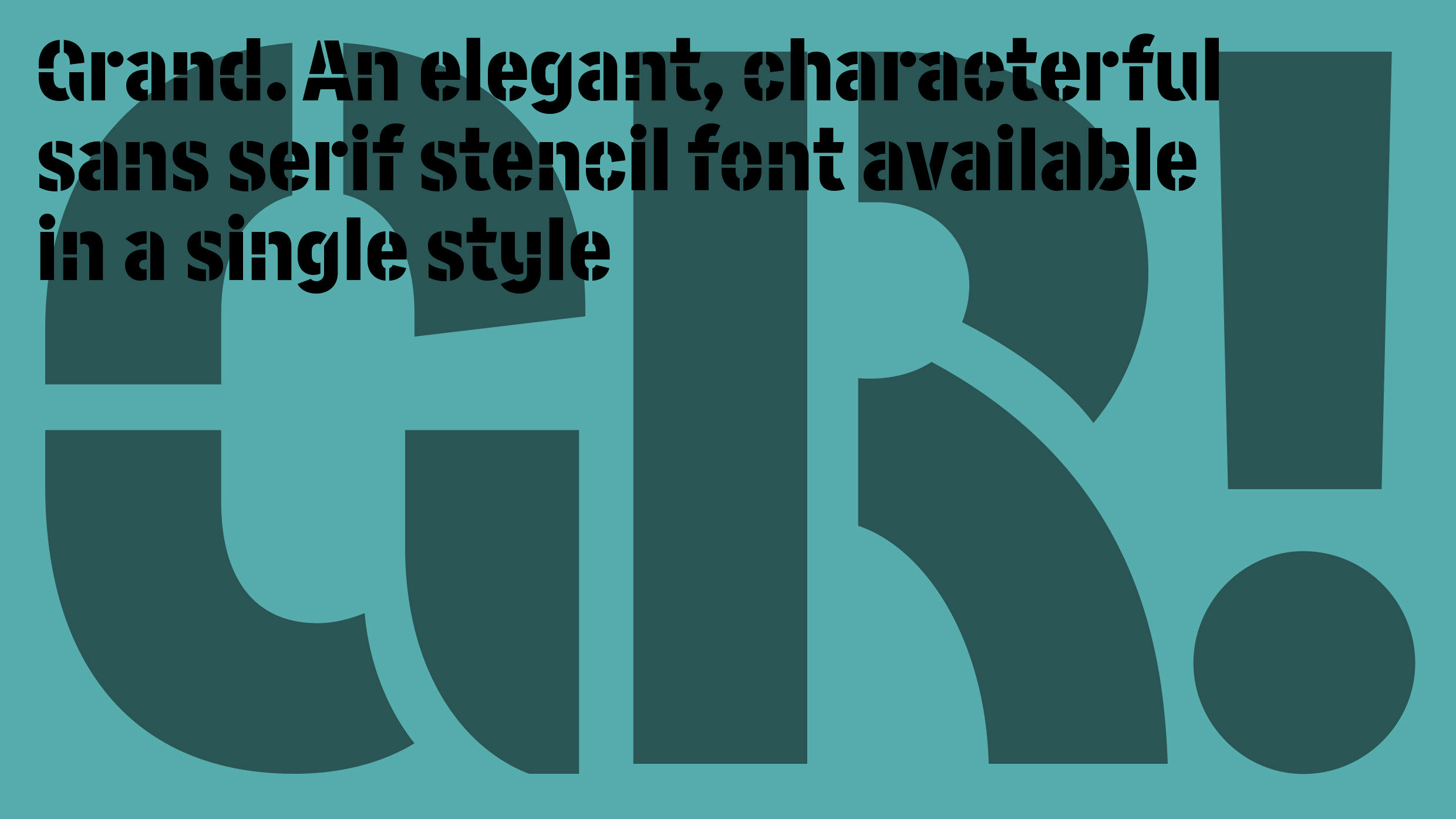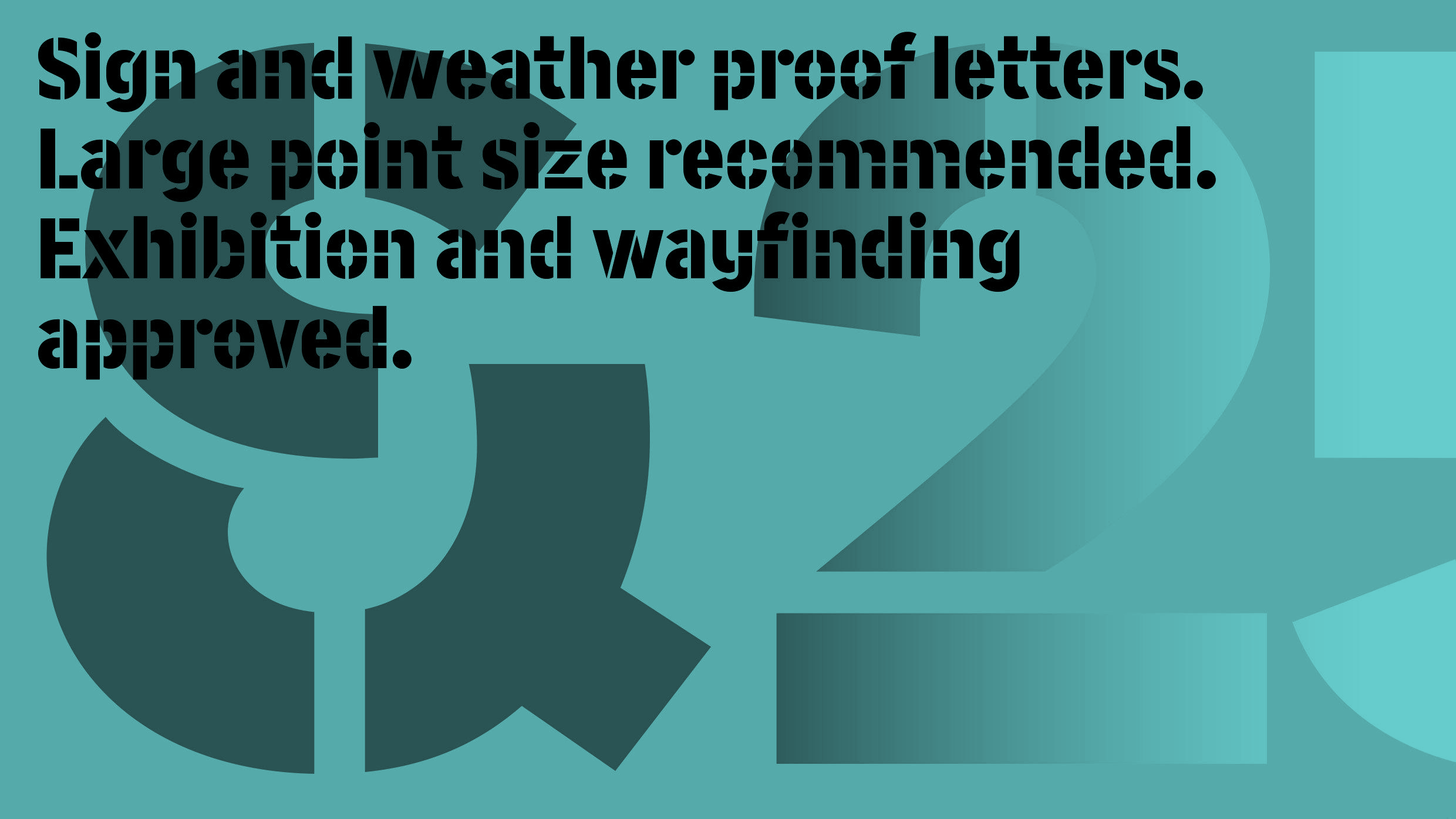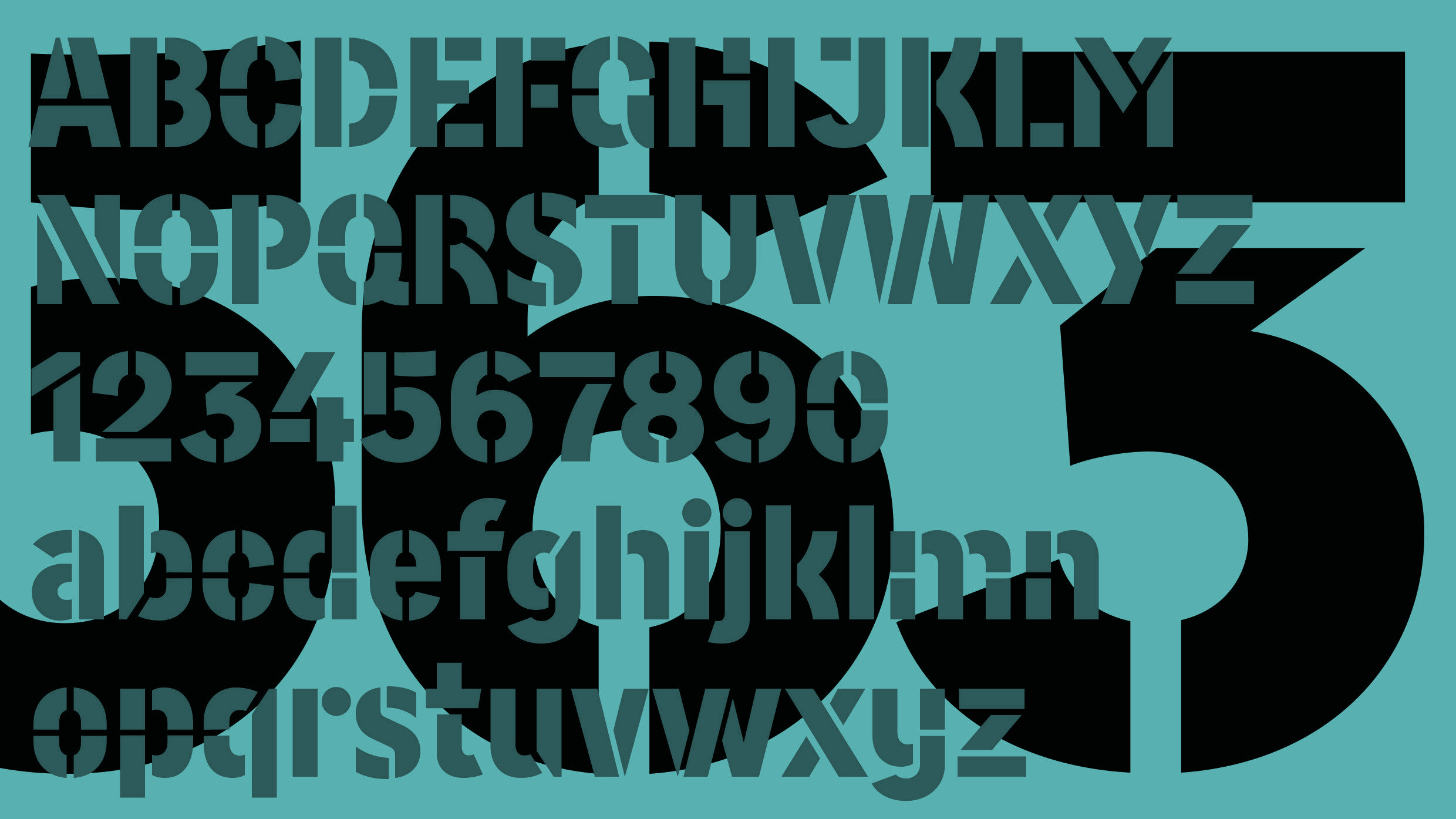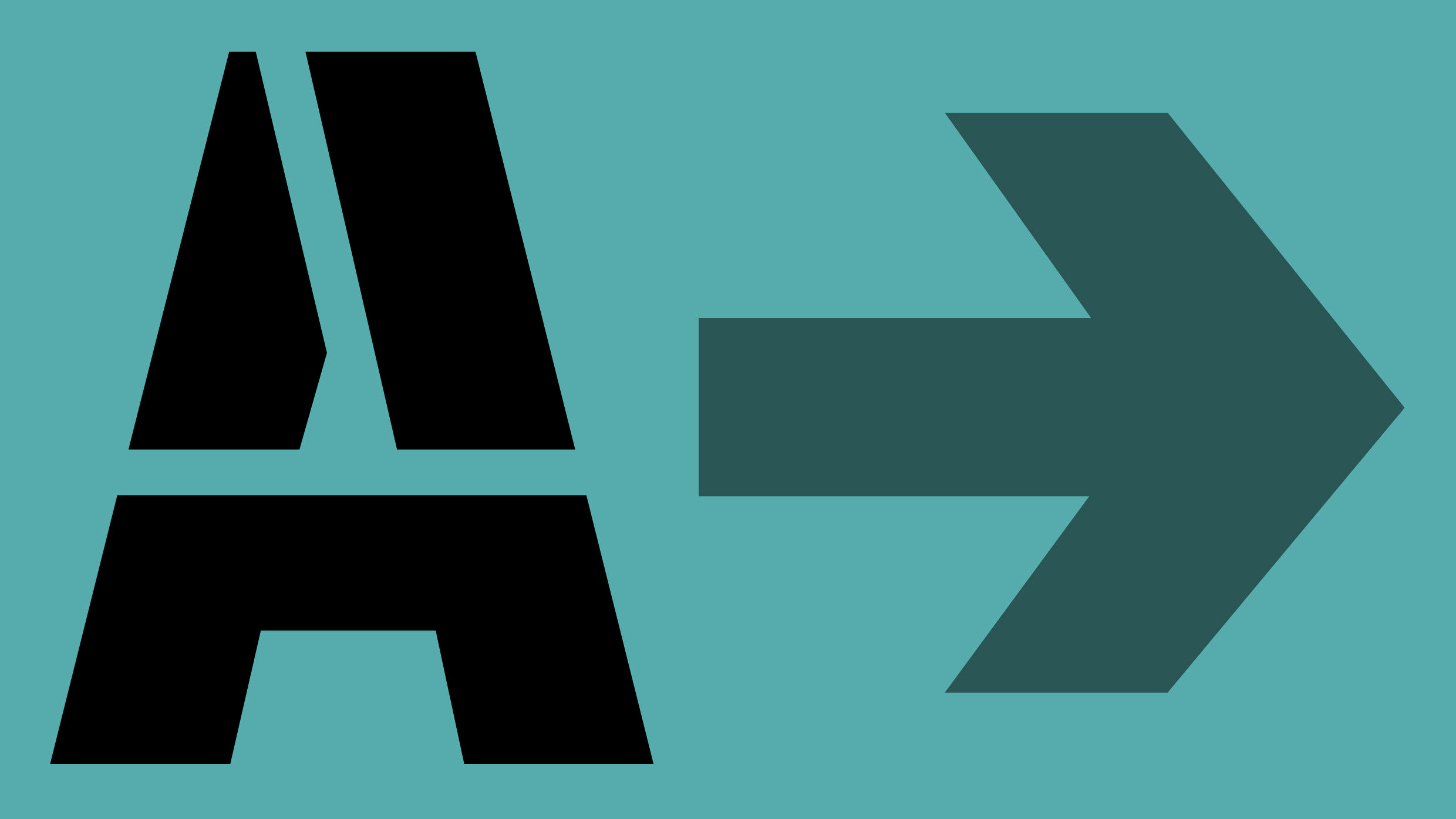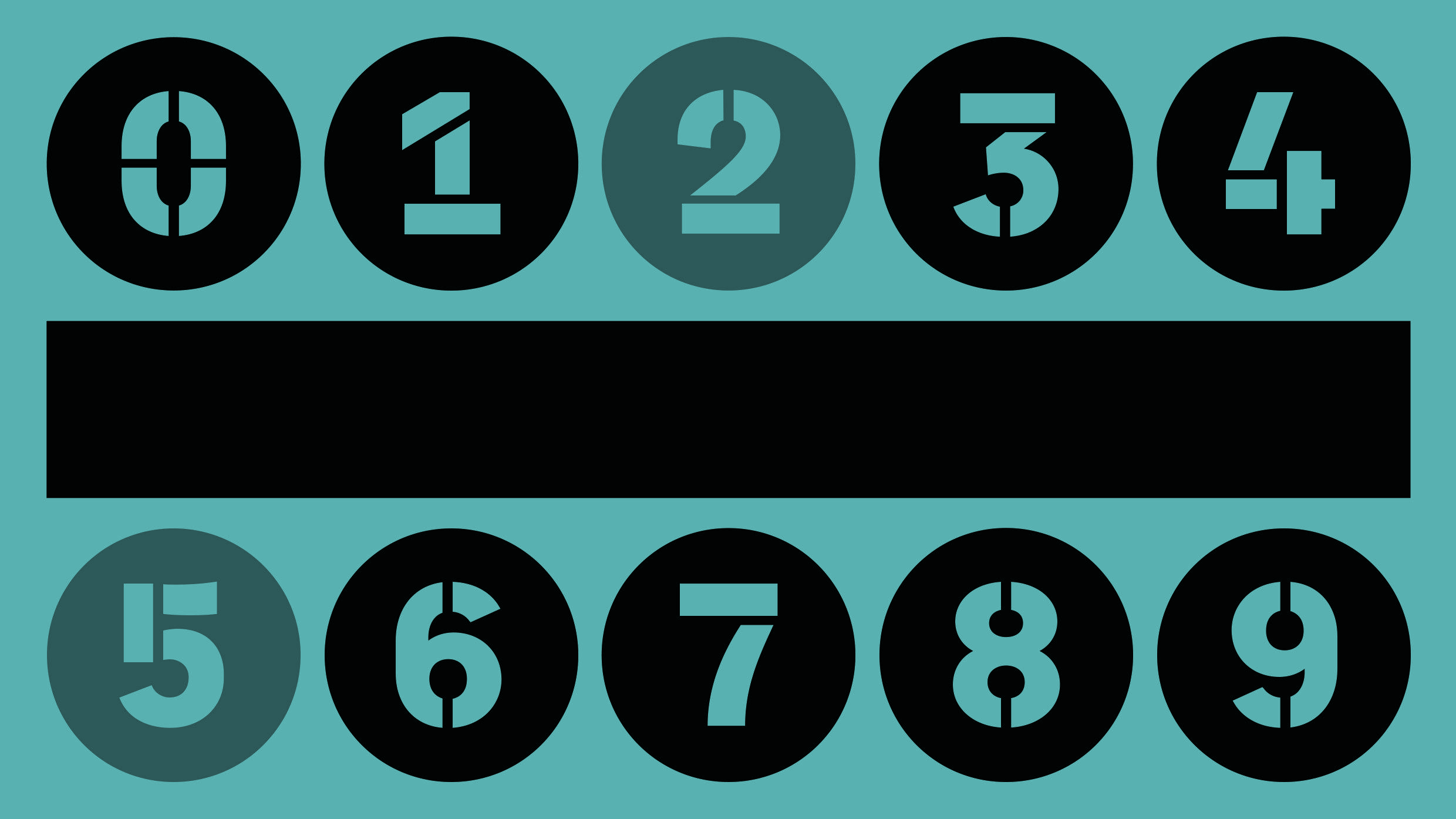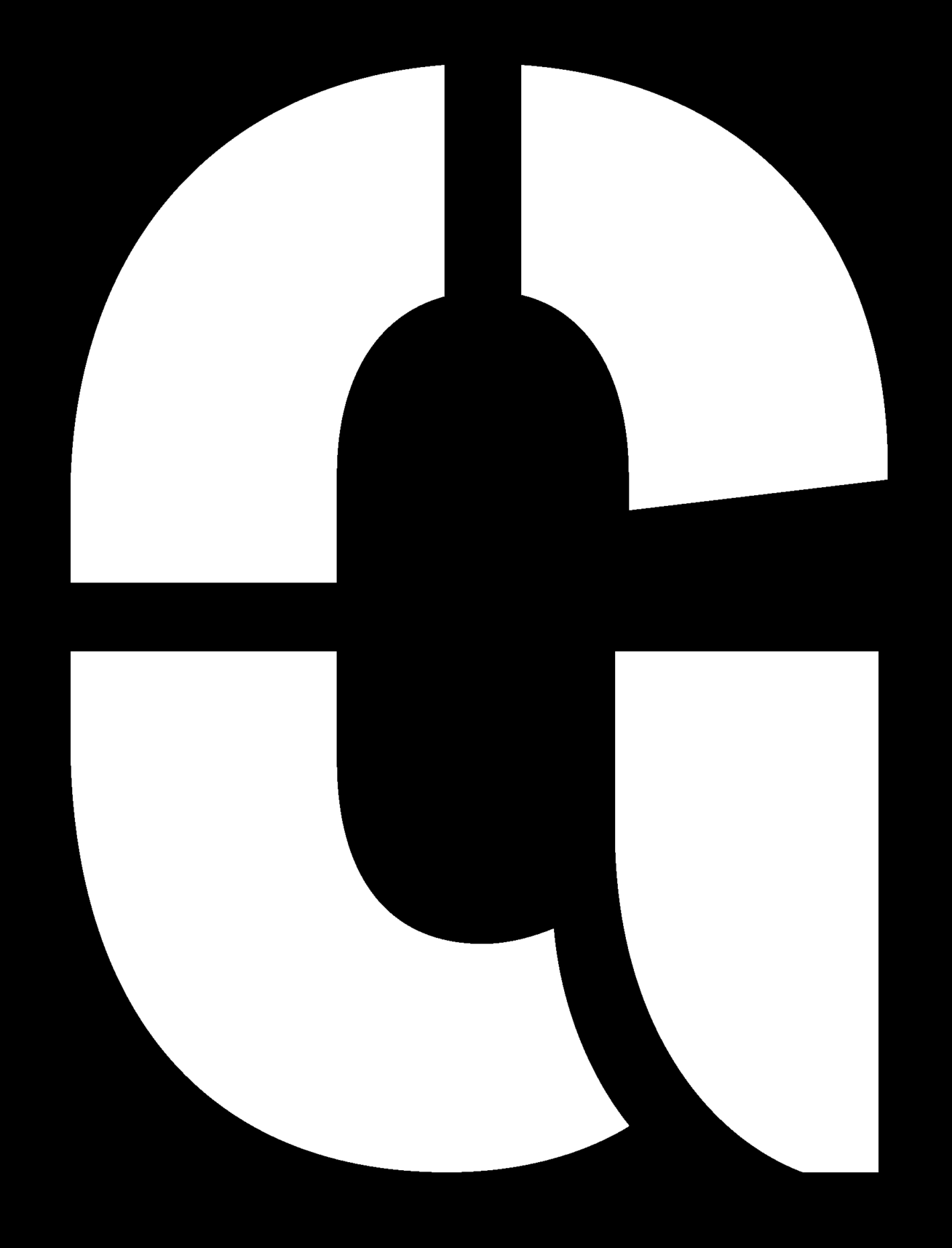
Grand Stencil
Grand is an elegant, characterful sans serif stencil font available in one style, with an extensive character set plus a unique set of fractions, icons and ornaments.